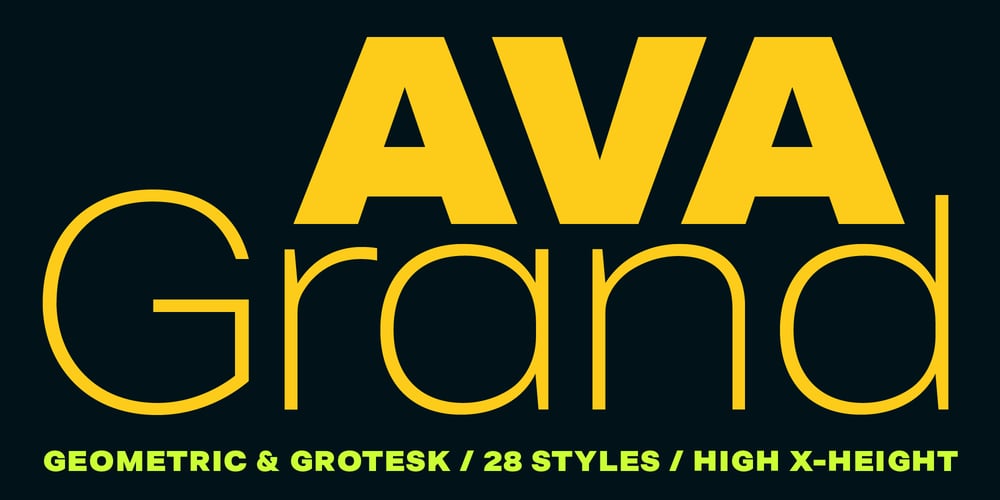
Ava Grand Font Family was designed by Matt Chansky and published by Matt Chansky. Ava Grand contains 28 styles and family package options. Ava Grand is a modern and versatile high x-height font that offers both geometric and grotesk glyph options. 28 styles, from light to black in both wide and regular width. With its generous architecture, Ava Grand is finely crafted as a digital-first font – increasing legibility for screens. The universal and modern appeal make it attractive for offline tactics as well: CPG, dining, apparel, shopping, entertainment, fitness, technology, pharma, travel – you name it, Ava Grand can help elevate your creative. Level up with Ava Grand.